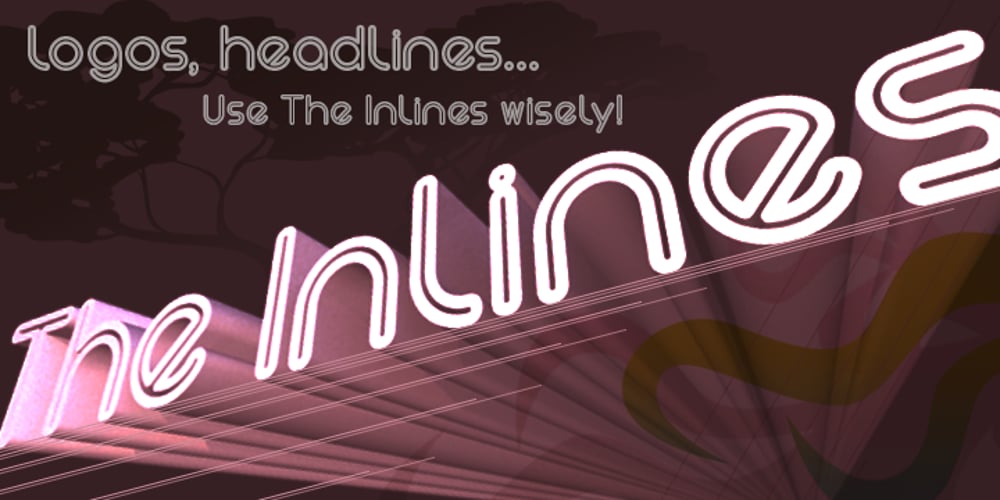
The Inlines Font Family was designed by Natsuko Hayashida and published by Okaycat. The Inlines contains 1 styles and family package options. The Inlines is available in two styles – inlined, or non-inlined. A distinctive font set for logo creation, titling, and more. Check it out! The Inlines is extended, containing West European diacritics and ligatures, making it suitable for multilingual environments and publications.